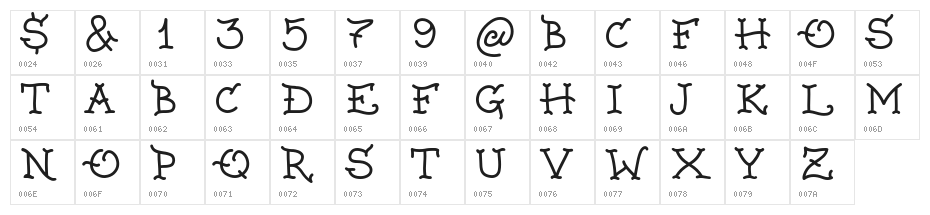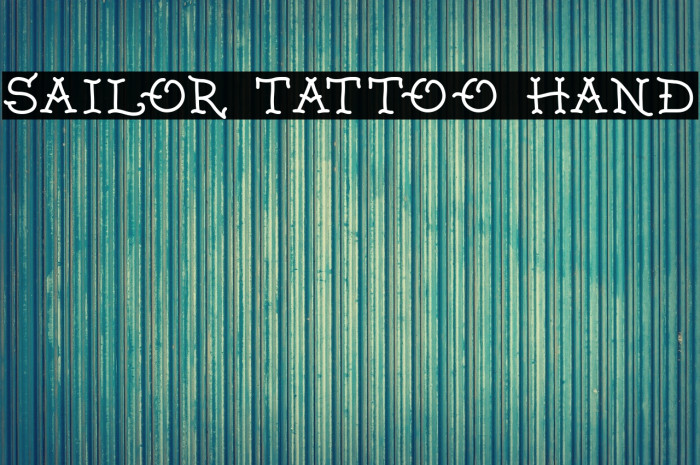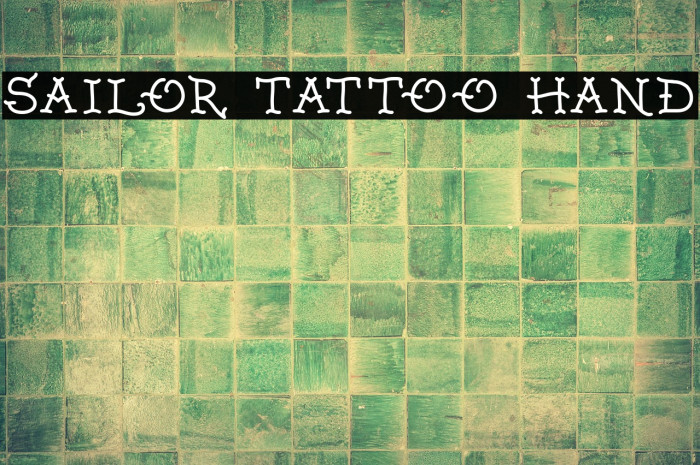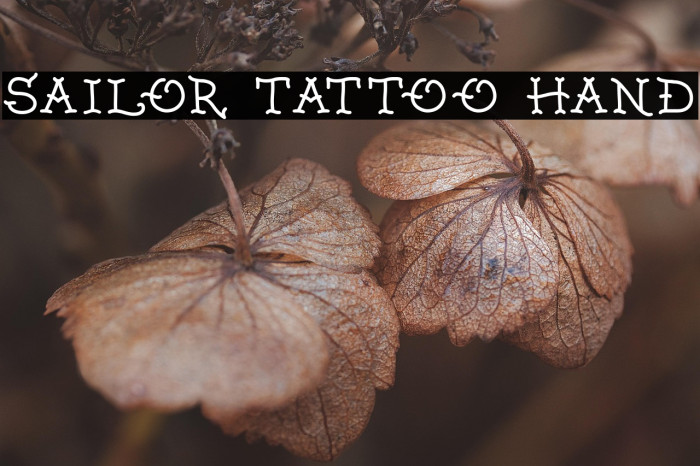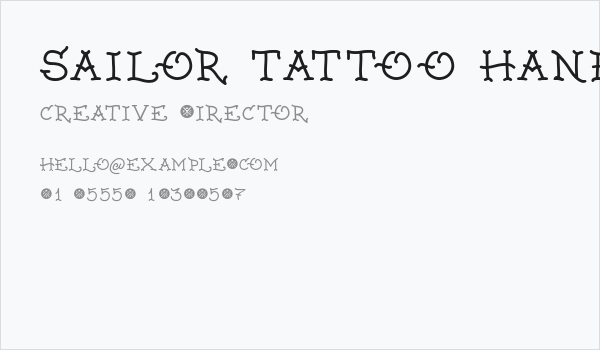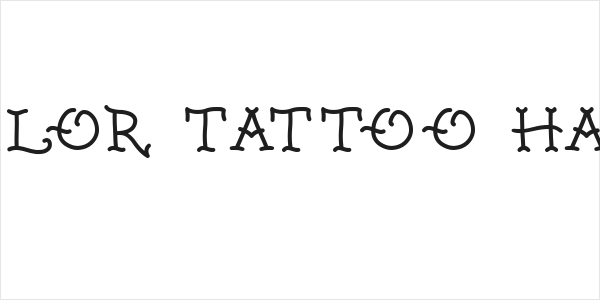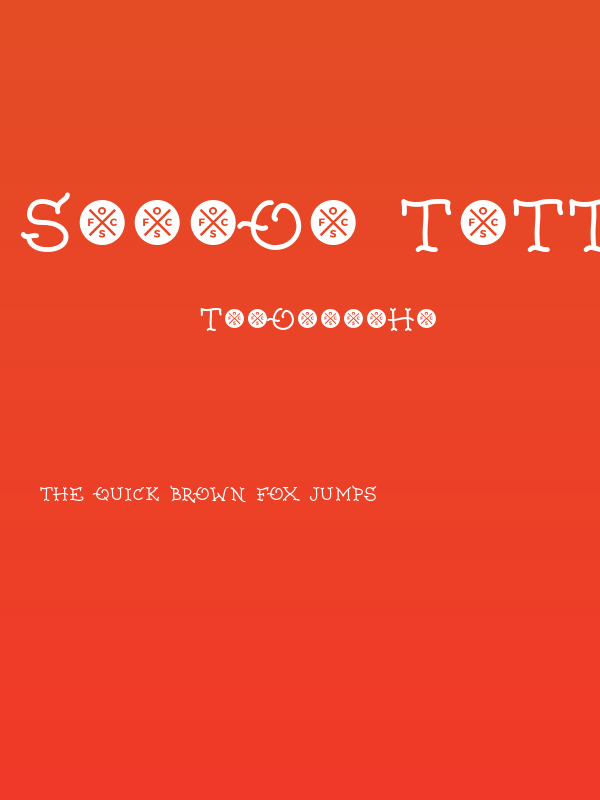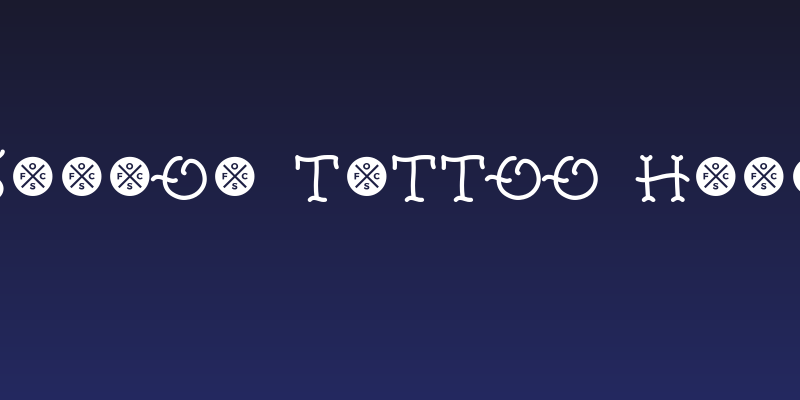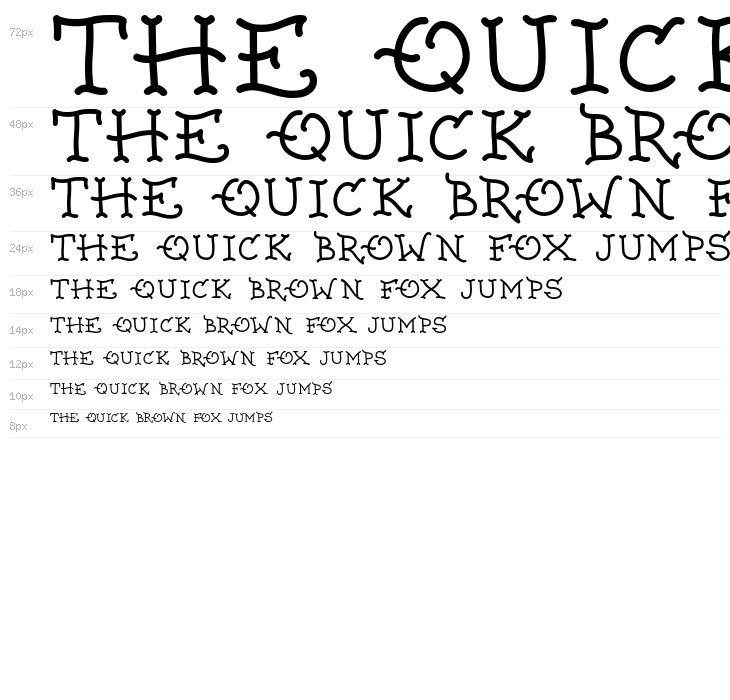
Sailor Tattoo Hand Font
Sailor Tattoo Hand Description
This font features a playful and decorative style reminiscent of traditional sailor tattoos. The characters are bold and have a hand-drawn appearance, with whimsical curves and flourishes that give it a unique personality. The uppercase letters are particularly ornate, with exaggerated serifs and loops that add to the nautical theme. The numbers and special characters maintain the same decorative style, ensuring consistency throughout the font. This font is ideal for projects that require a touch of vintage charm and a sense of adventure.
| Overall Style | Vintage, Decorative |
| Use Case | Logos, Posters, Branding |
| Proposed Projects | Perfect for tattoo designs, vintage posters, nautical-themed events, and branding for adventurous or maritime-related businesses. |